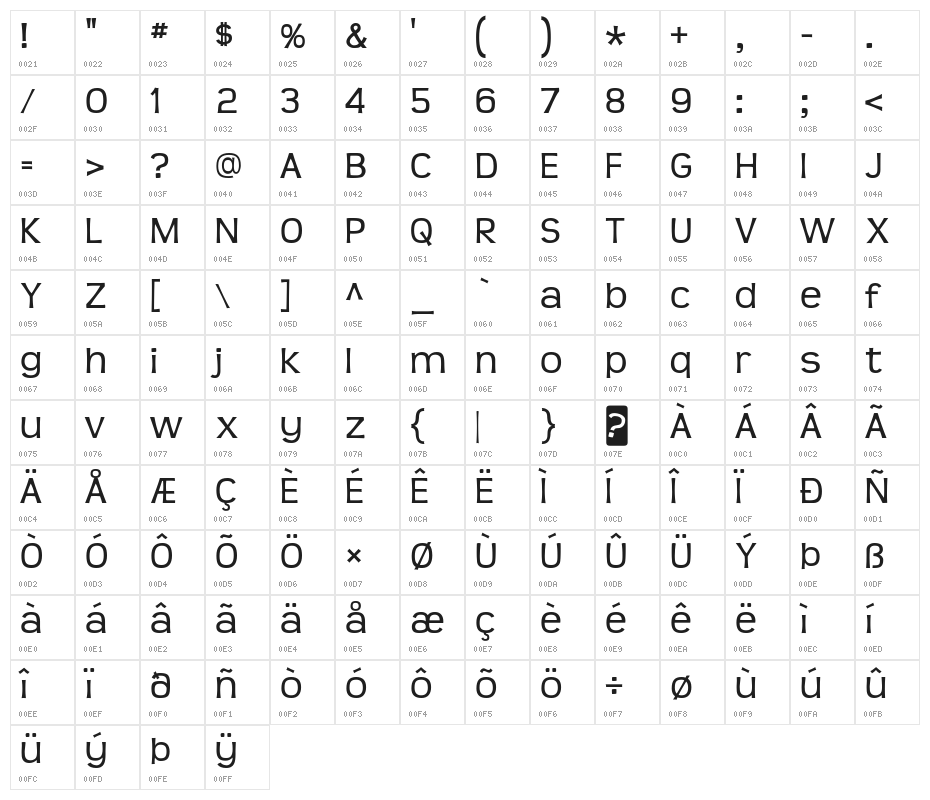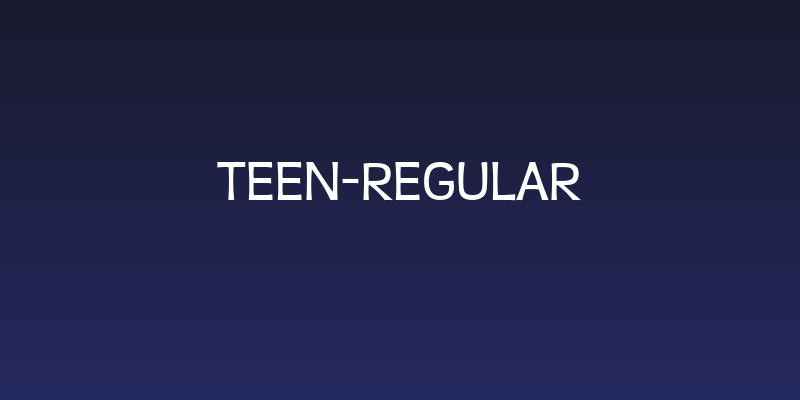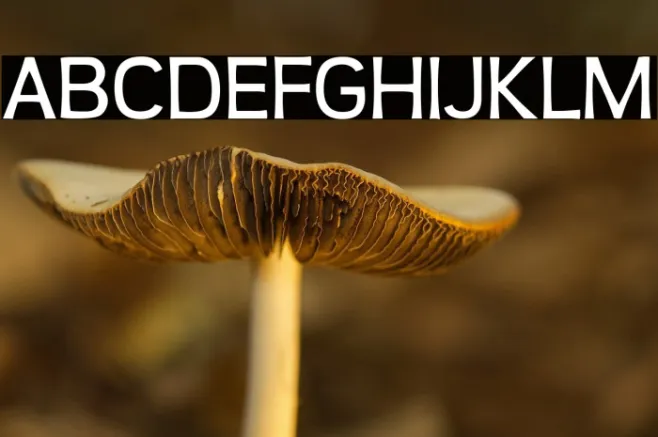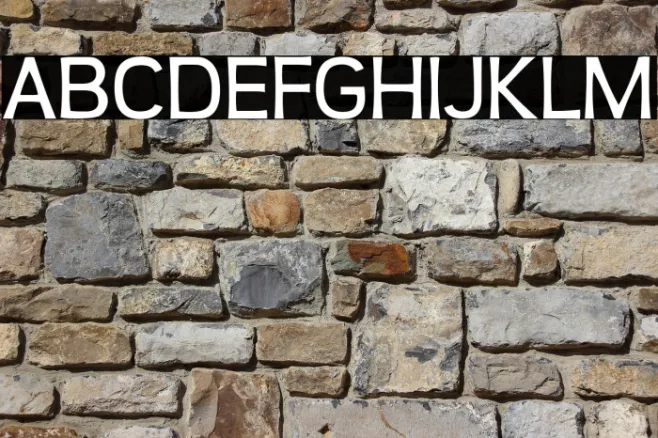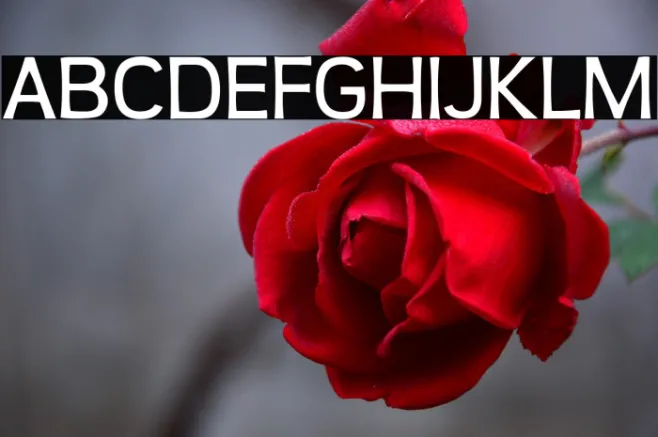
Teen-Regular Font
Teen-Regular Description
This font features a clean and modern sans-serif style with a slightly rounded appearance, giving it a friendly and approachable feel. The uppercase letters are bold and well-defined, while the lowercase letters maintain a consistent height and width, ensuring readability. The numerals are clear and distinct, making them suitable for various applications. Special characters are well-integrated, maintaining the overall aesthetic of the font. The design balances simplicity with a touch of uniqueness, making it versatile for different design needs.
| Proposed Projects | Ideal for branding, advertising, web design, and user interfaces where a clean and modern look is desired. |